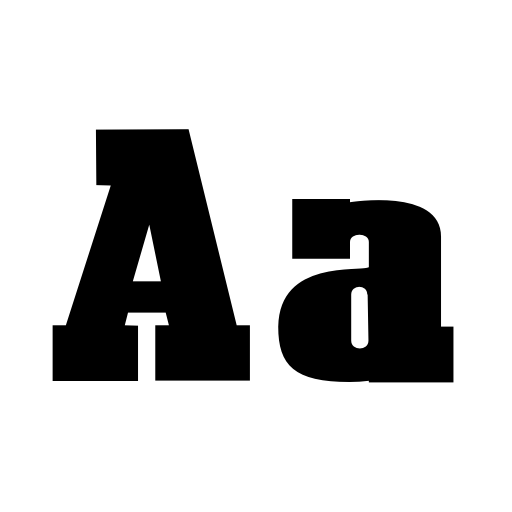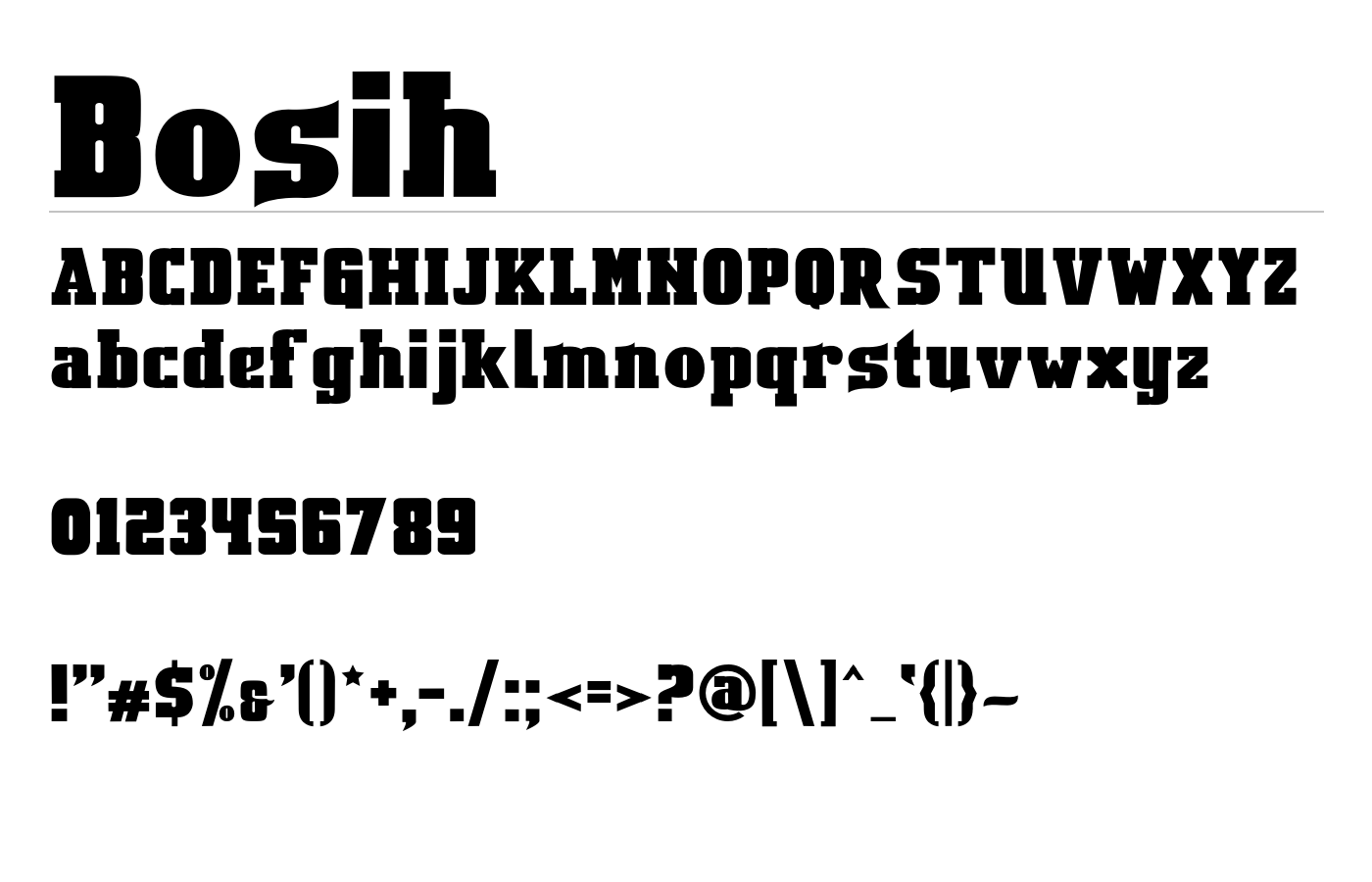
Bosih is a bold slab serif font with a strong, blocky presence and distinctive thick serifs that give it a sturdy, industrial feel. Its heavy weight and condensed width make it ideal for headlines, logos, and designs needing a confident, impactful style with a touch of vintage character. This font works beautifully for branding, posters, and editorial use where a commanding and memorable impression is desired.
Bosih Font
About Bosih Font